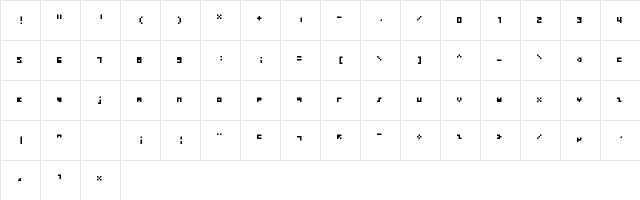
3x5 Regular
| Foundry | memesbruh03 |
| Designer | memesbruh03 |
Design Context for 3x5 Typeface
3x5 is a composed and adaptable typeface that performs quietly and consistently across a wide range of design contexts.